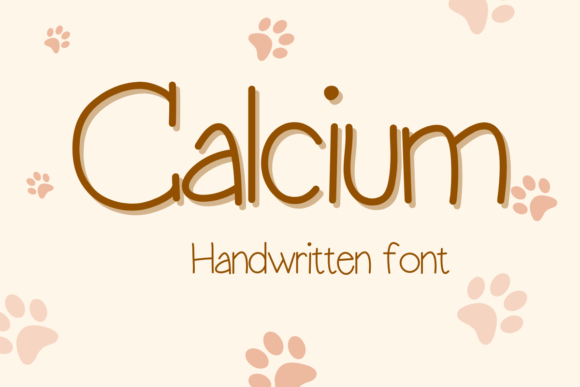
Unlock Your Creativity with the Calcium Font
Have you ever sat down with a blank notebook, a pen, and a burst of inspiration, eager to bring your ideas to life? For many of us, this is the moment when creativity flows, and our imagination knows no bounds. Whether it’s jotting down a poem, sketching out a design, or simply recording a thought that struck us in the middle of the night, this moment is pure magic.
For designers and creatives, this moment is even more special when they have the right tools at their disposal. That’s where the Calcium Font comes in – a beautiful, handwritten font that’s perfect for adding a personal touch to your designs. With its elegant script and playful feel, the Calcium Font is ideal for notes, diaries, greeting cards, and so much more.
What makes the Calcium Font truly valuable is its versatility. From banners to social media posts, mugs to stationery, this font can elevate your designs and make them stand out. Whether you’re a seasoned designer or just starting out, the Calcium Font is a must-have addition to your creative arsenal.
Key Features of Calcium Font
- Font Family: Calcium Font is a sans-serif font family designed for optimal readability and versatility.
- Character Set: Supports a wide range of languages, including Latin, Cyrillic, and Greek alphabets, making it suitable for global applications.
- Unique Characteristics: Features a distinctive rounded sans-serif design with subtle rounded edges, giving it a friendly and approachable feel.
- Font Weight: Available in multiple font weights, including Light, Regular, Medium, Bold, and Black, allowing for flexible styling options.
Calcium Font Review
As a designer, I was excited to dive into the Calcium Font and see what it had to offer. While it’s not without its flaws, I do think there are some ✨ standout features that make it worth considering for the right projects.
- ✨ High level of customization options, allowing users to fine-tune the font to their liking
- ✨ Clean and modern aesthetic, making it a great fit for tech and digital projects
- ✨ Robust character set, covering a wide range of languages and special characters
Limitsations:
- ⚠️ Some users may find the font too bold or overwhelming in certain contexts
Overall, I’d say the Calcium Font is a solid choice for designers who need a modern, customizable font. However, its limitations may make it less suitable for projects requiring extensive cross-browser compatibility or more subtle typography. With some careful planning and testing, it can be a valuable addition to any designer’s toolkit.
Calcium Font is perfect for:
- Modern branding and logo design
- Minimalist website design
- Professional presentations and reports
Remember to use Calcium Font in combination with other design elements to create a unique and visually appealing design.